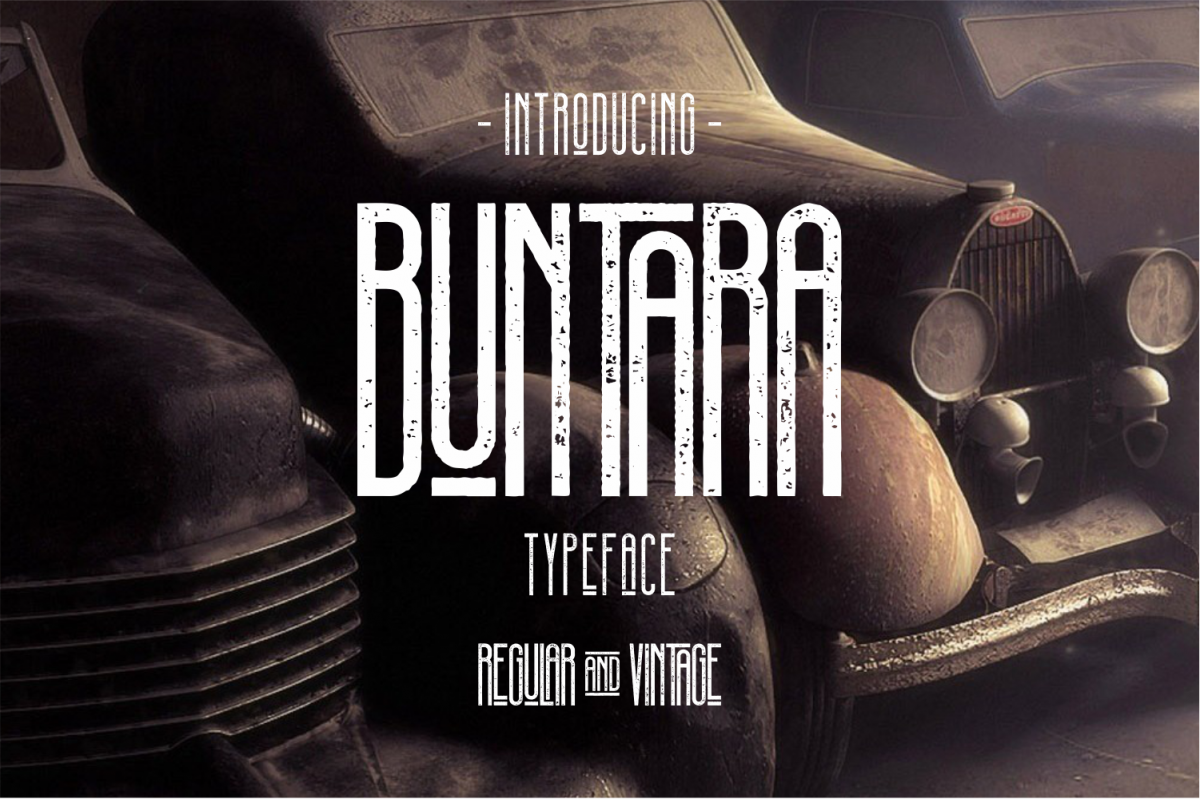
Buntara Typeface
Buntara Regular
Buntara Vintage
Buntara is handmade modern vintage textured display typefaces, which is combining the style of classic typography with an modern handlettering style.